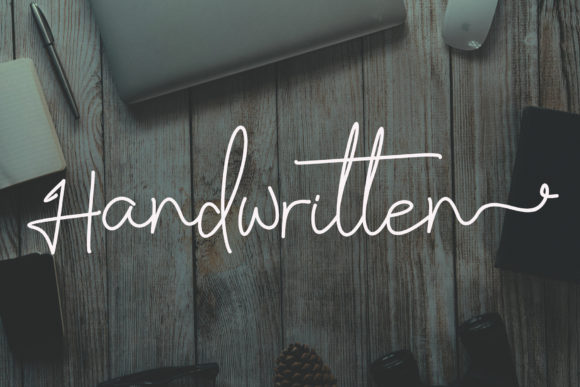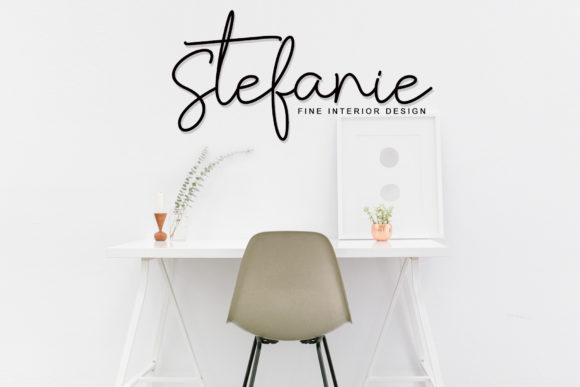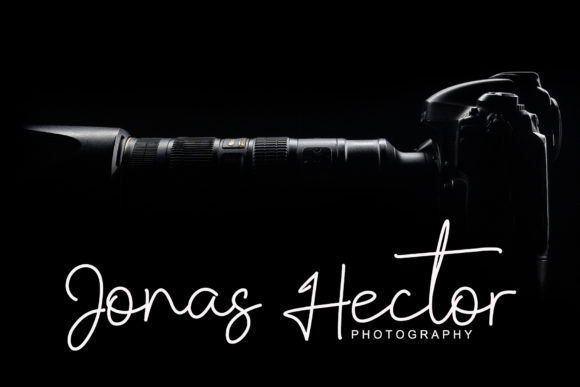
Introduction to Lattiefa Font
As designers, we’ve all been there – staring at a blank page, waiting for that elusive spark of inspiration to strike. For me, it was a lazy Sunday morning, sipping coffee and scrolling through social media, when I stumbled upon a beautiful logo that caught my eye. The elegant script, the swashes, the ligatures – it was love at first sight! And that’s when I discovered the Lattiefa Font, a stunning design resource that has been making waves in the creative community.
The Lattiefa Font is more than just a pretty face; it’s a valuable tool for designers looking to add a touch of sophistication and elegance to their projects. With its transparent background and high-quality design, it’s the perfect addition to any creative project. And the best part? It’s available for free download, making it an accessible design resource for designers of all levels.
Honest Review: Lattiefa Font
I recently had the chance to work with the Lattiefa Font, and I must say it’s a great addition to any designer’s arsenal. This free download offers a high-quality, unique aesthetic that can elevate your creative project to the next level.
What works well: ✨ The Lattiefa Font has a clean, modern design that makes it perfect for digital applications, and its transparent background makes it easy to layer over other elements. It’s also incredibly versatile, suitable for a wide range of projects from logos to editorial content.
- Unique and modern design
- Transparent background for easy layering
- High-quality and detailed typography
Overall, I’m impressed with the Lattiefa Font’s potential to enhance my creative projects. Its unique design and high-quality typography make it a valuable addition to any designer’s toolkit. I’d definitely recommend giving it a try, especially for those looking for a free design resource that won’t compromise on quality.
The Lattiefa Font is suitable for a variety of creative projects, including graphic design, digital art, and print materials. It can be used for headings, titles, and body text, and is particularly effective for creating a modern and stylish look. Download the font for free and start using it in your next project today.